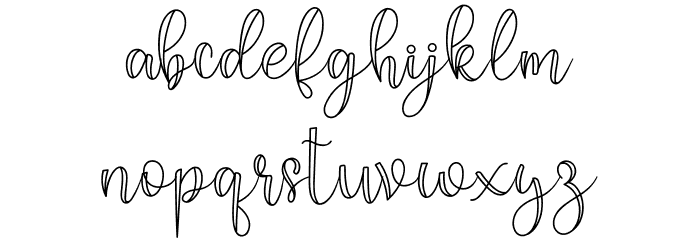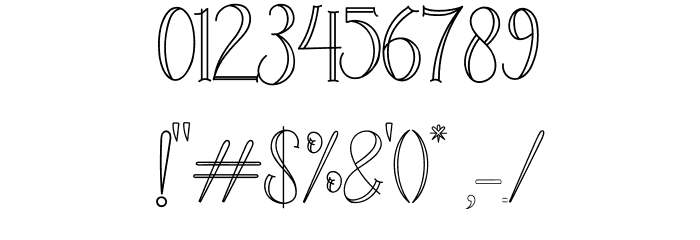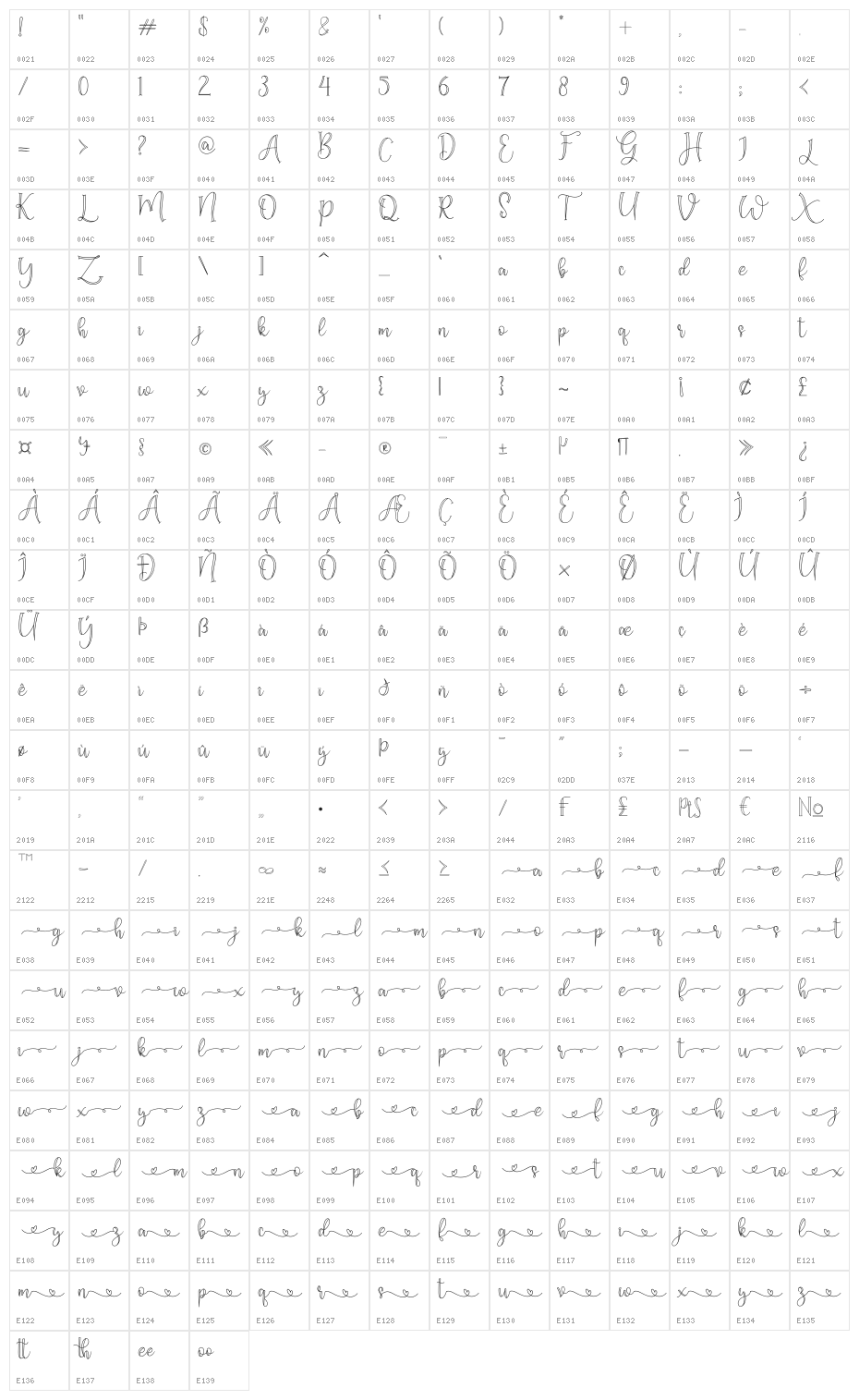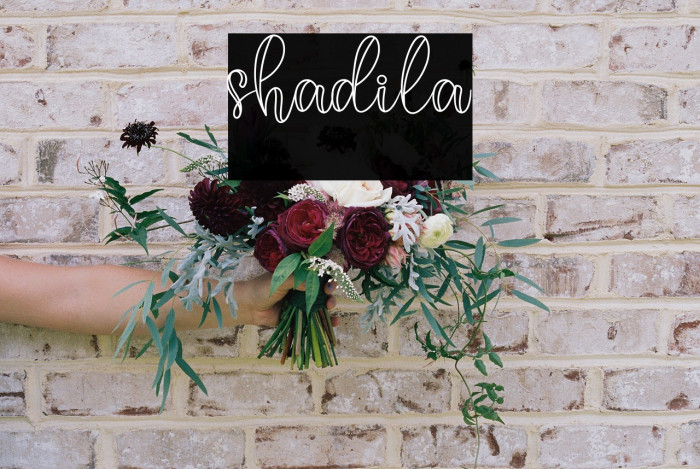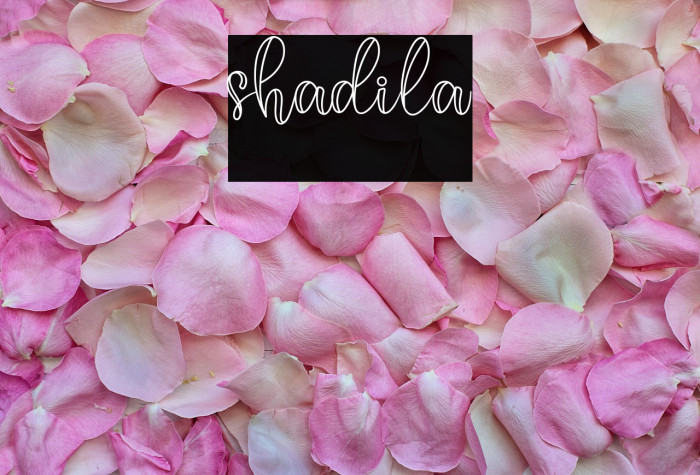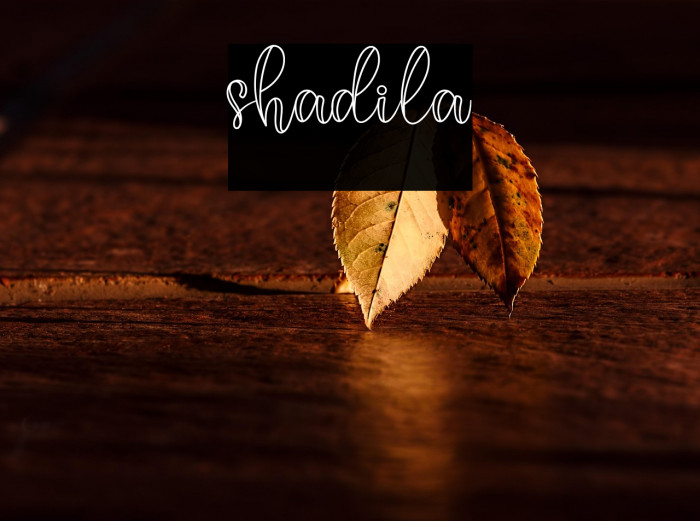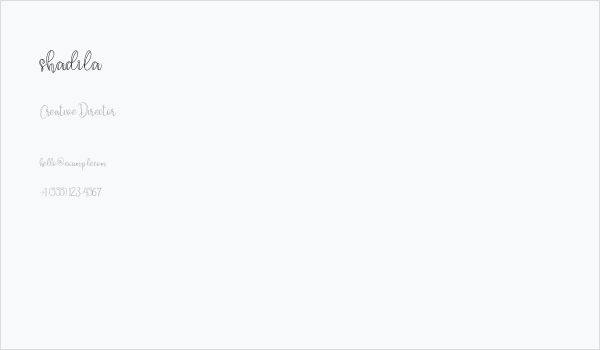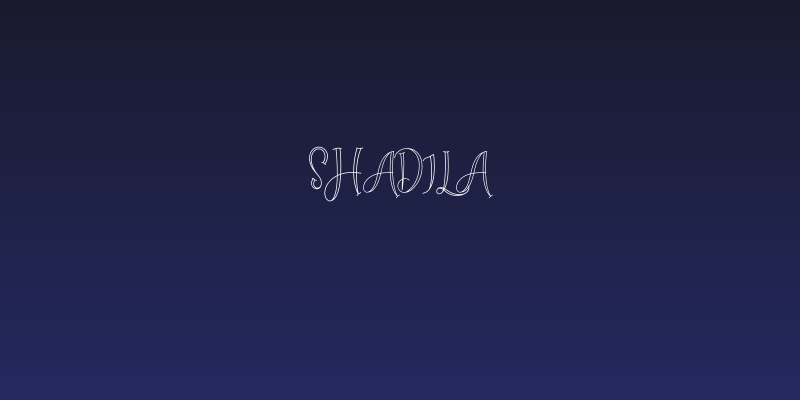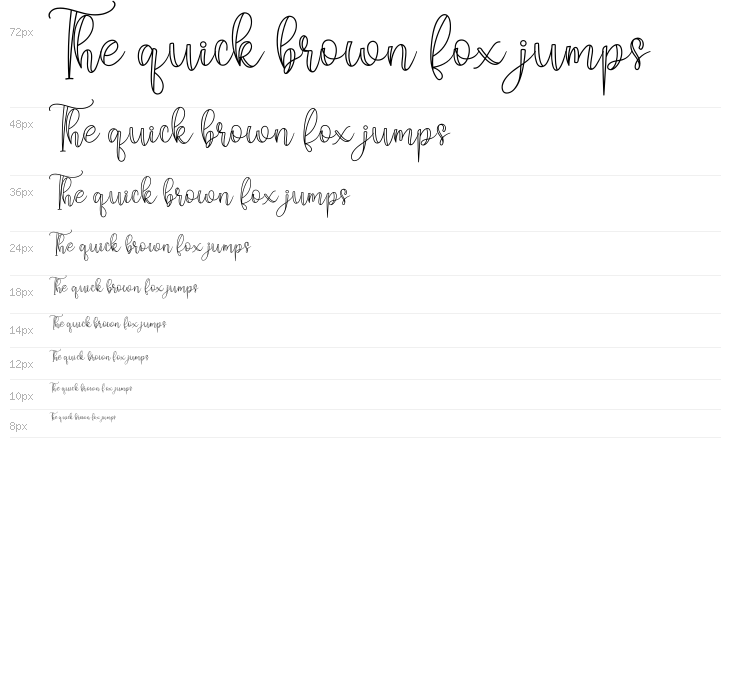
shadila Font
This font features a whimsical and elegant script style with a playful yet sophisticated flair. The uppercase letters are characterized by their tall, looping ascenders and descenders, giving them a sense of movement and fluidity. The lowercase letters maintain a consistent style, with smooth, flowing lines that enhance readability while retaining a decorative touch. The numerals are distinct and clear, matching the overall aesthetic with their curvy and artistic design. Special characters are creatively integrated, adding to the font's versatility. This font is ideal for projects that require a touch of elegance and creativity, such as invitations, branding, and decorative text.
A whimsical and elegant script font with flowing lines and artistic flair.
- Proposed Projects: Ideal for wedding invitations, branding, greeting cards, and decorative projects.
- Category: Script
- Use Case: Headlines, Logos, Invitations